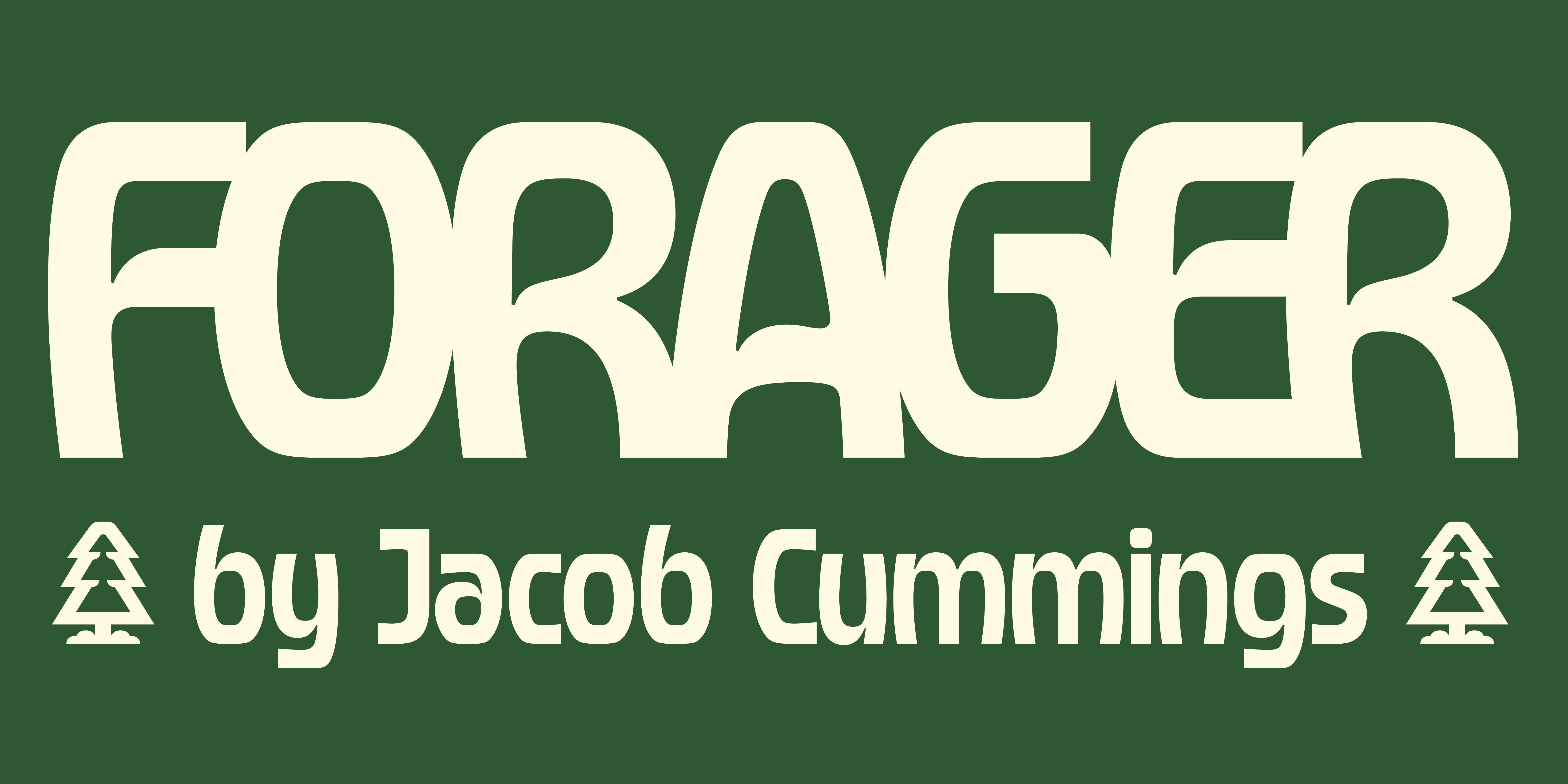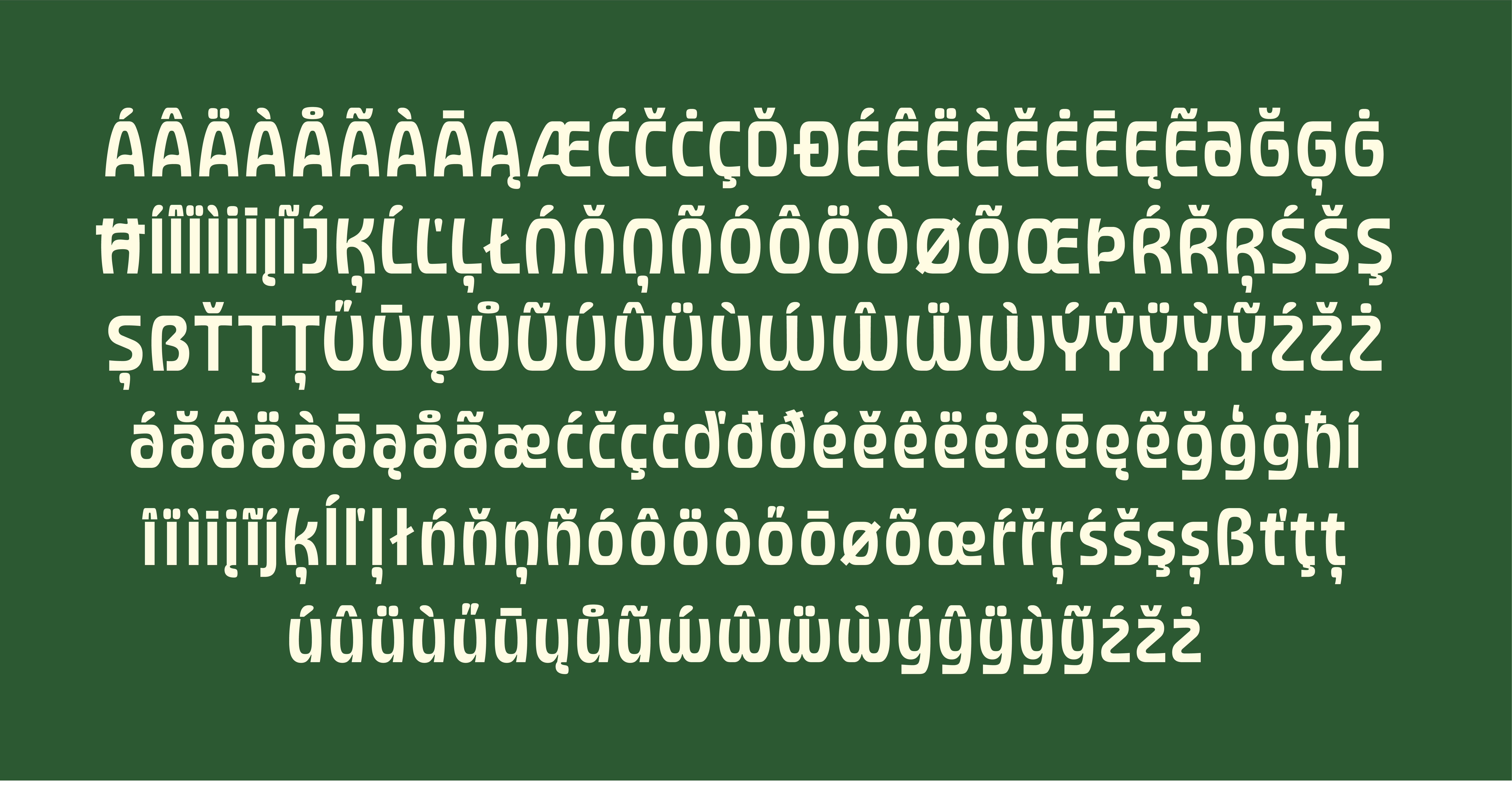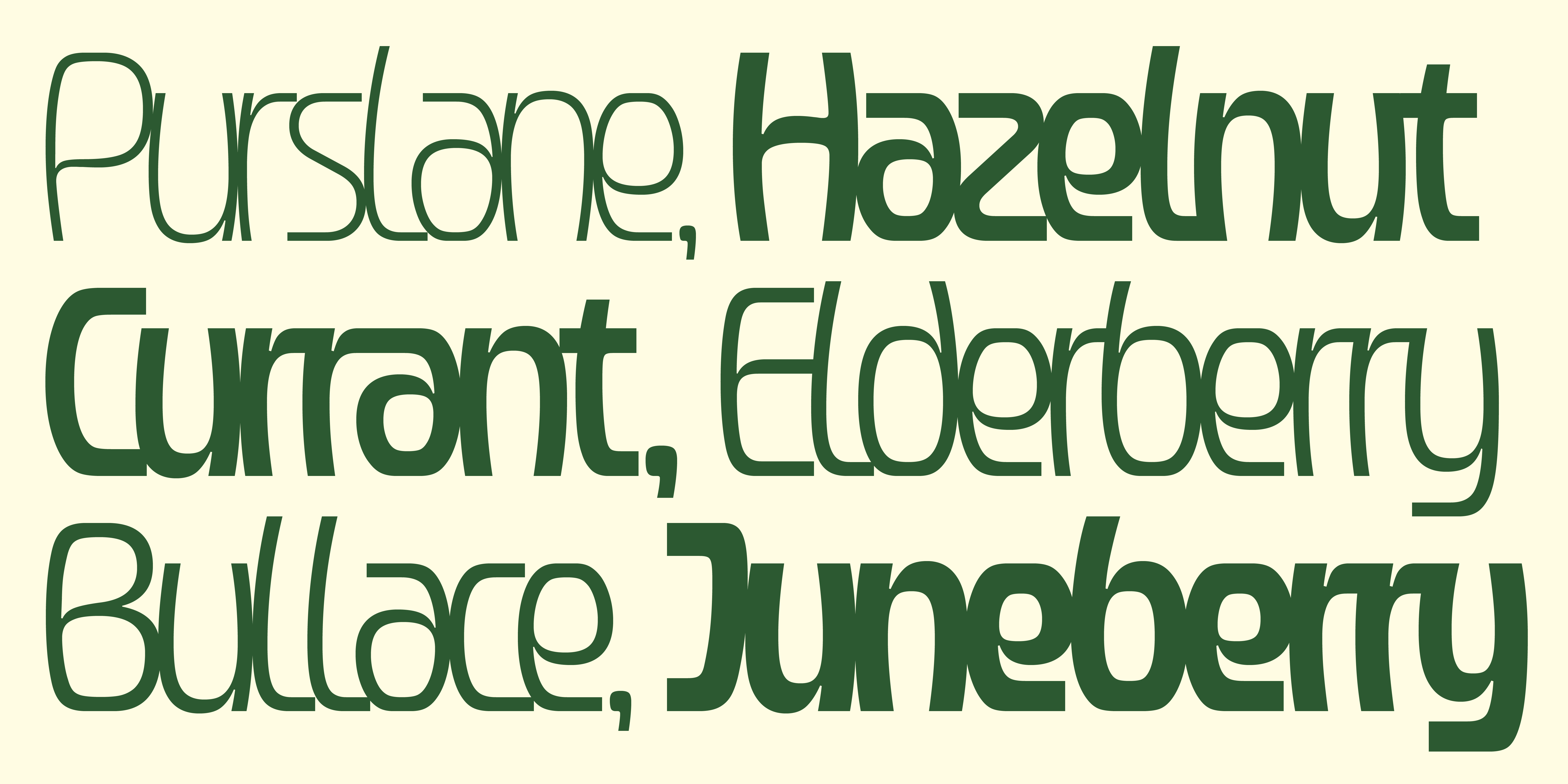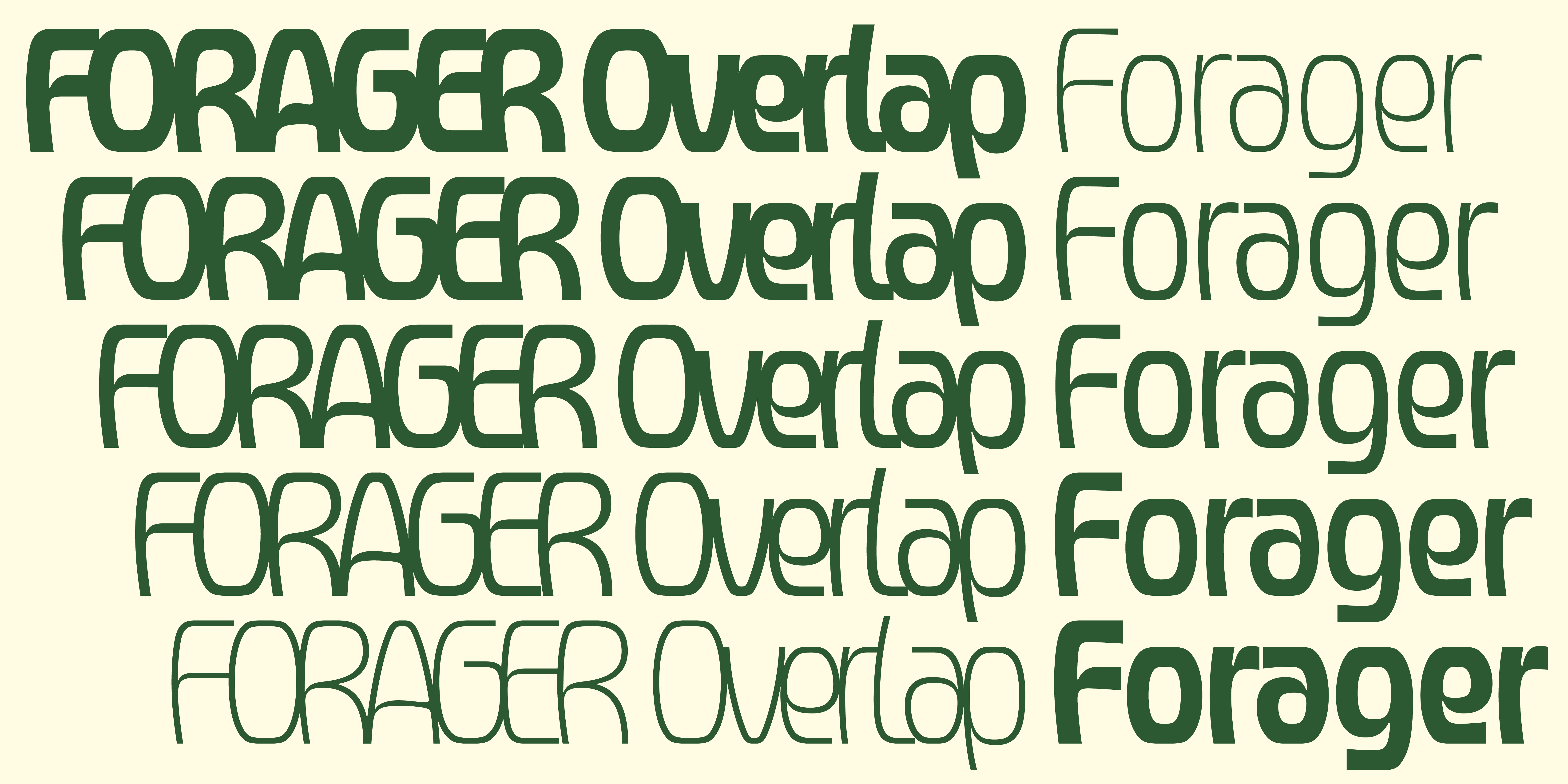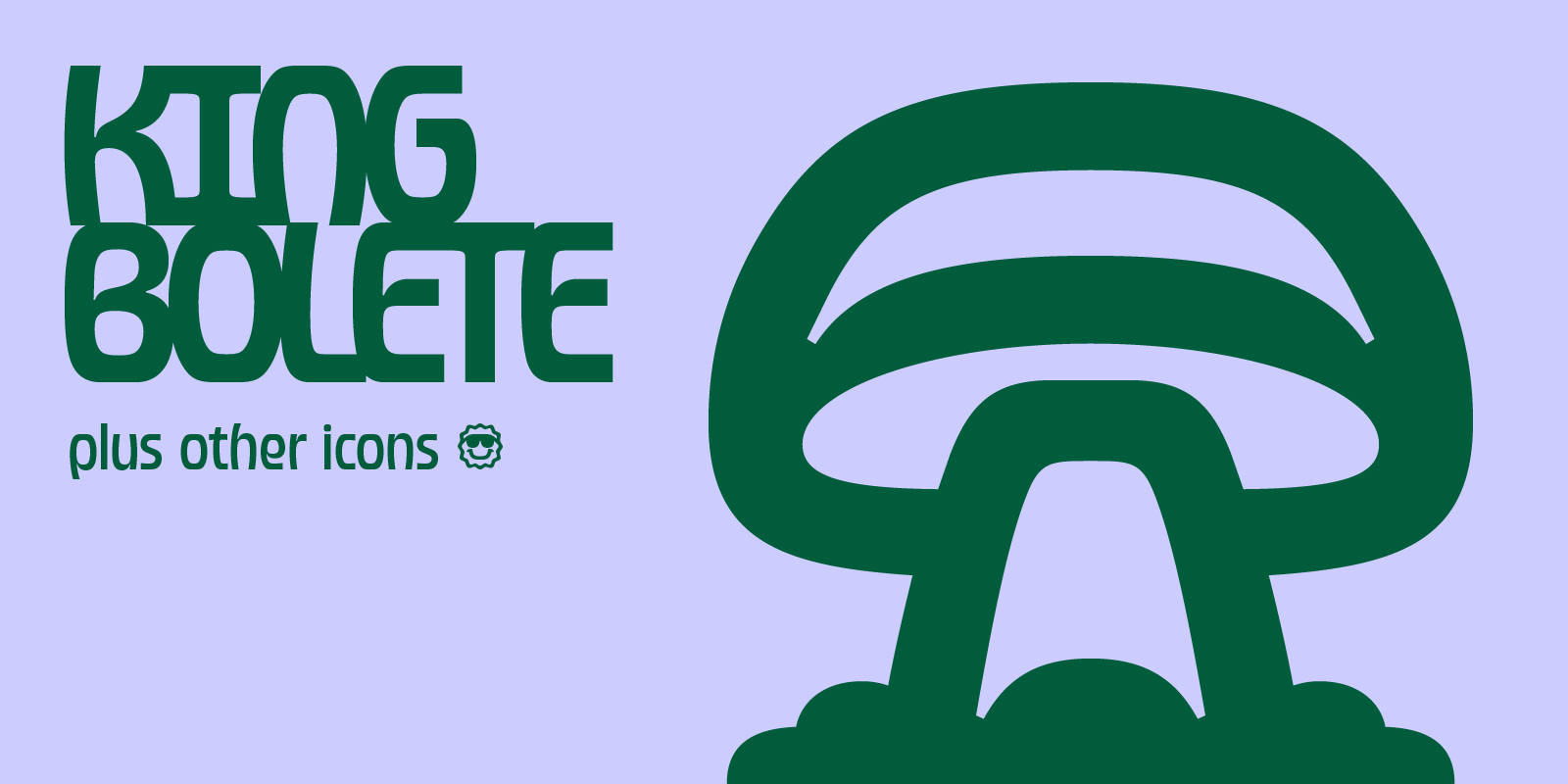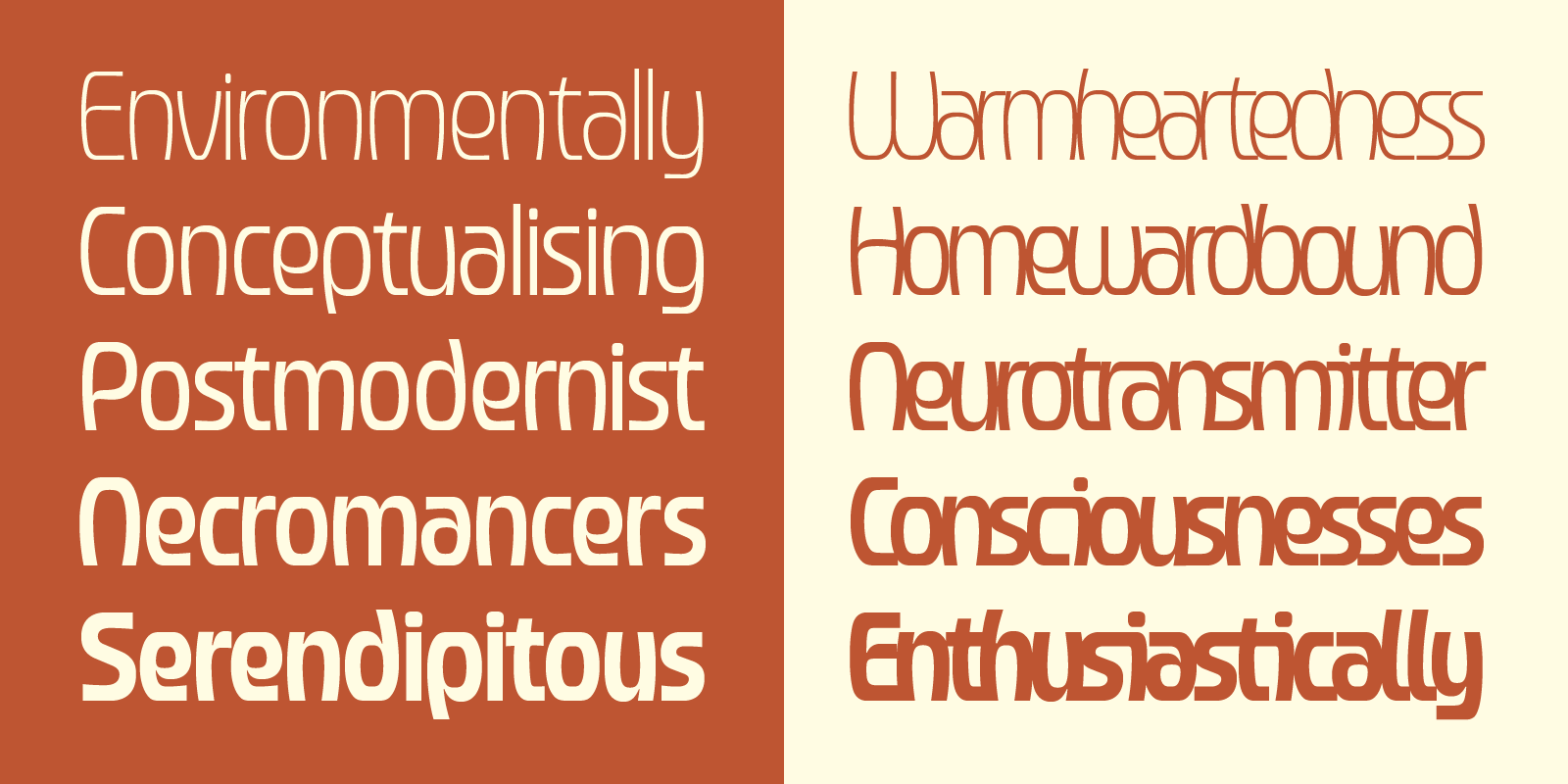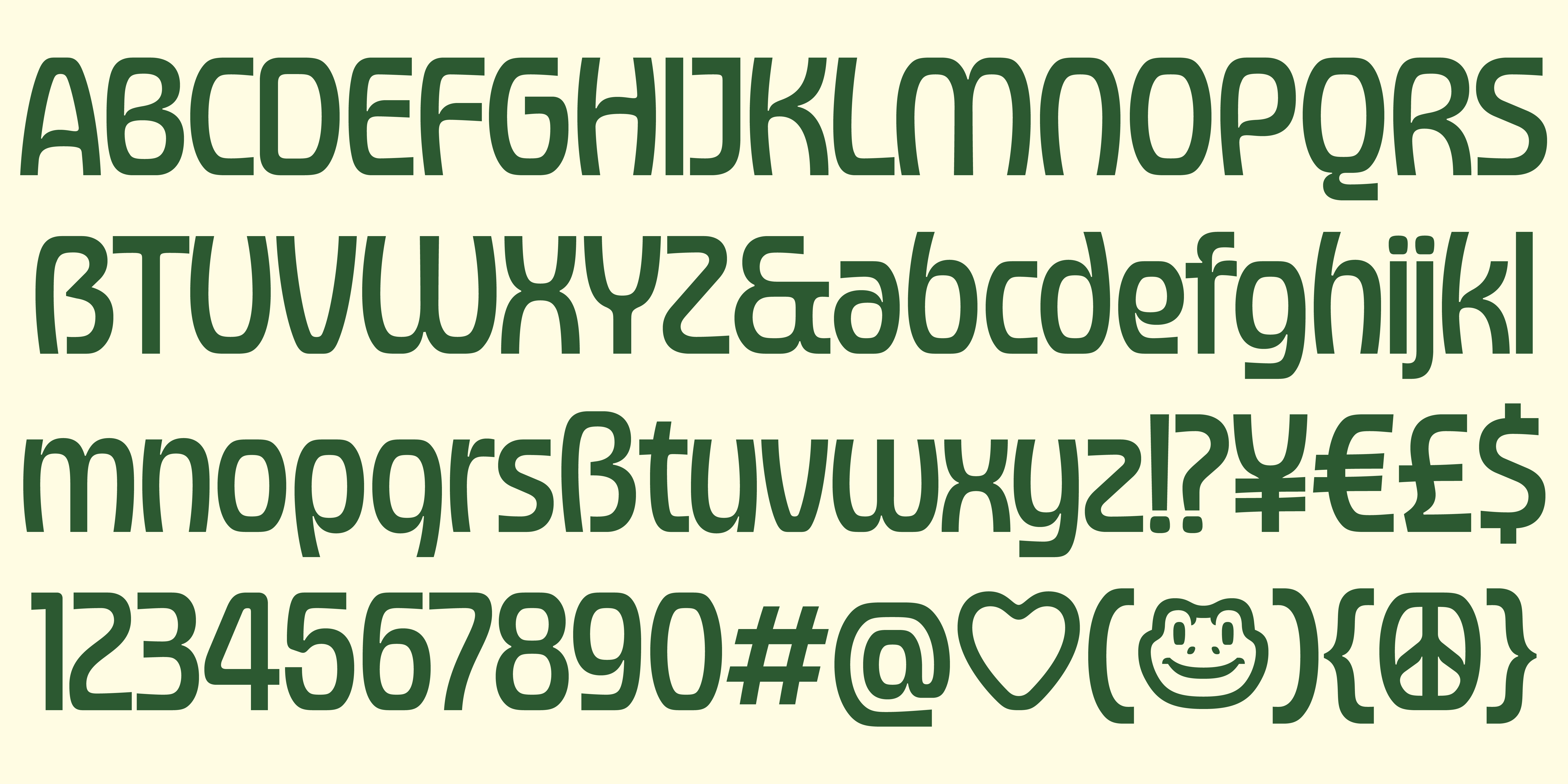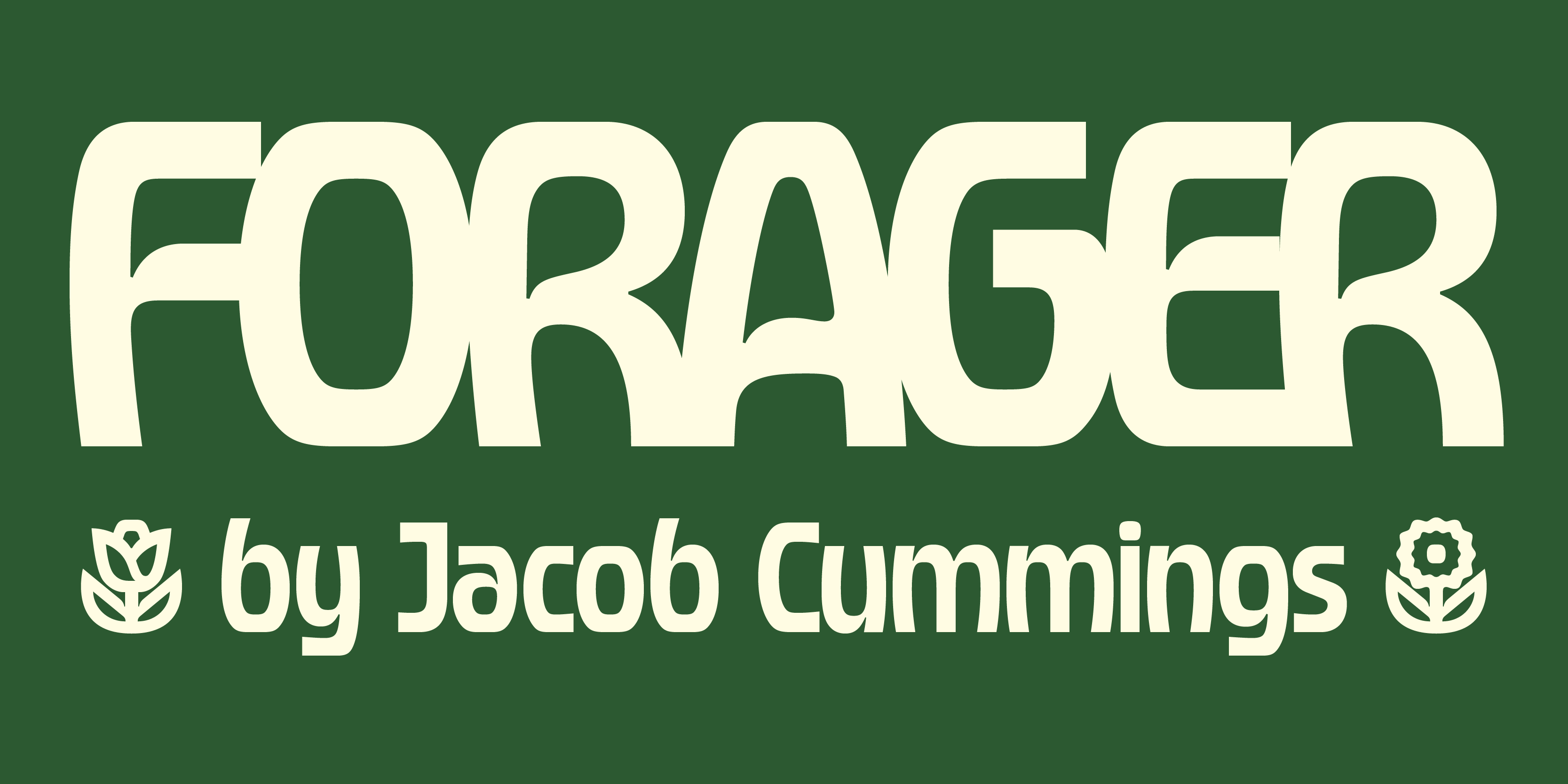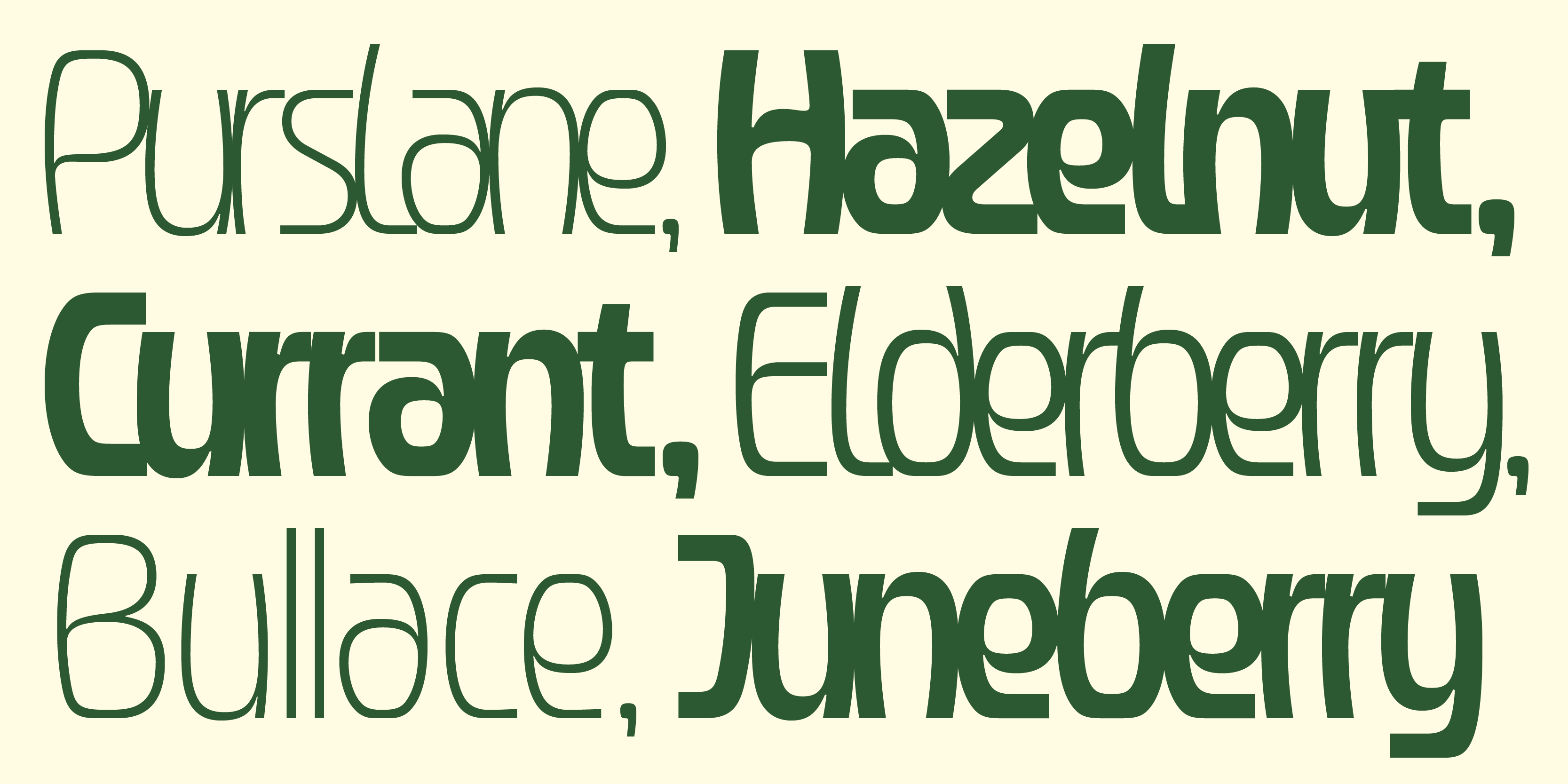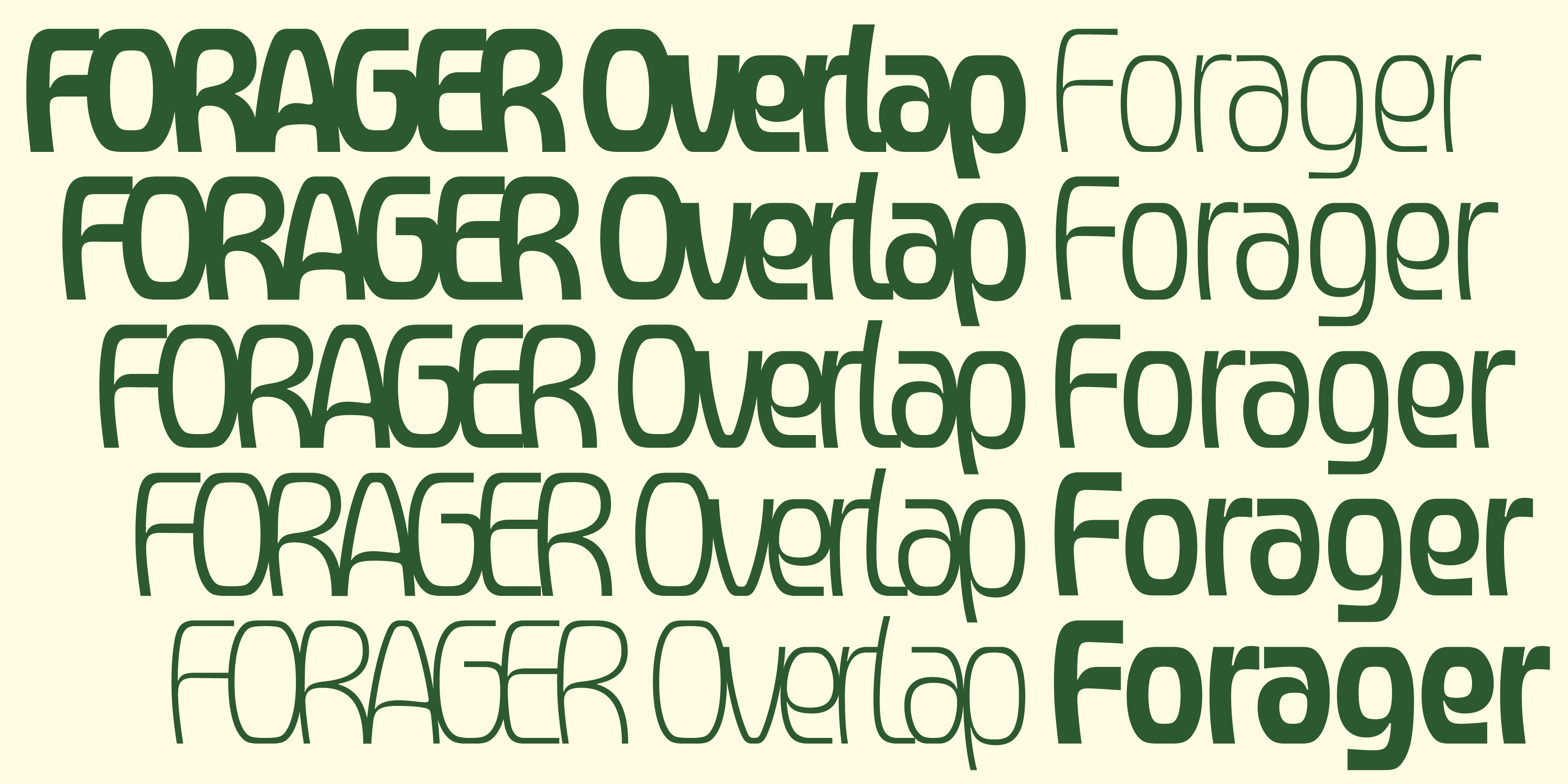
Forager Collection
Forager
Thin Light Regular Medium Bold Thin Overlap Light Overlap Regular Overlap Medium Overlap Bold OverlapForager is a sans serif type family by Jacob Cummings from Dingbat Co. Based on some popular styles from the Photo-Lettering Inc. catalog as well as shapes from Art Nouveau illustrations. The typeface has a combination of bowed verticals and flat horizontals that give Forager its rounded square shape which helps to improve legibility well when overlapped. The family consists of five weights in both overlap, and tightly spaced styles, and includes two variable fonts.
Update includes Adobe Latin 2 Character set, as well as more language support, and improved joins.